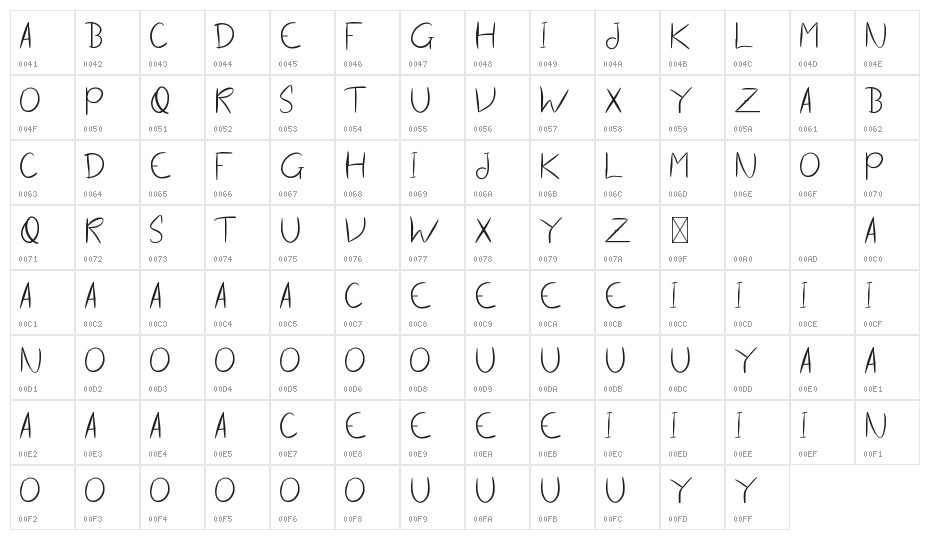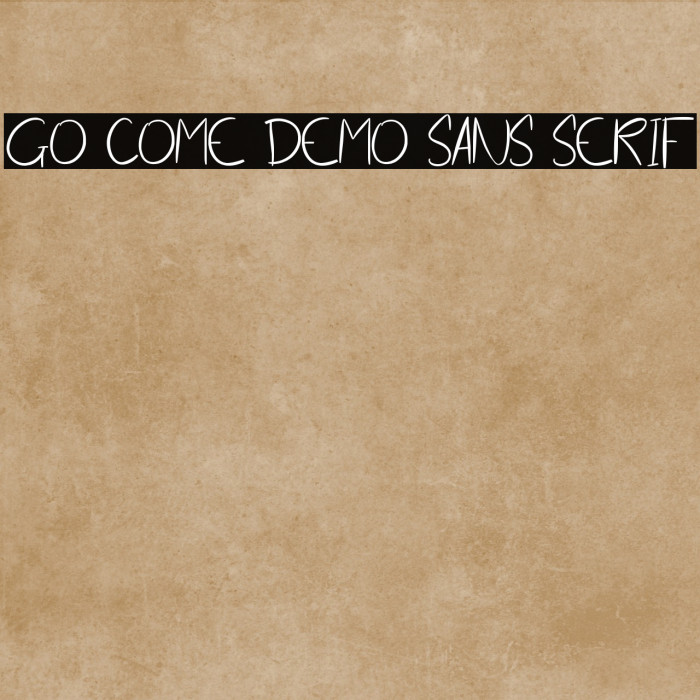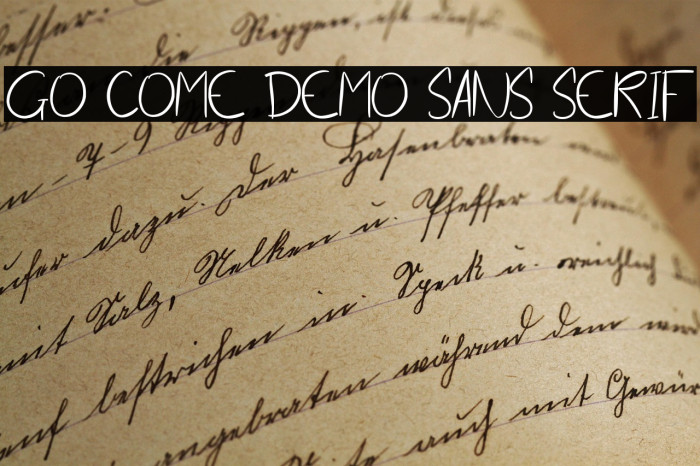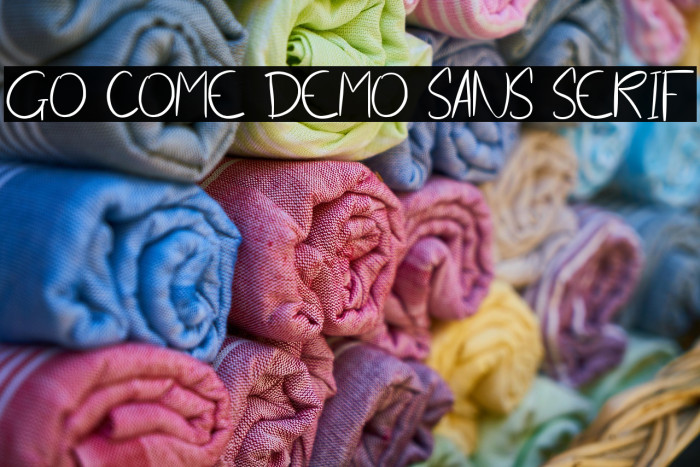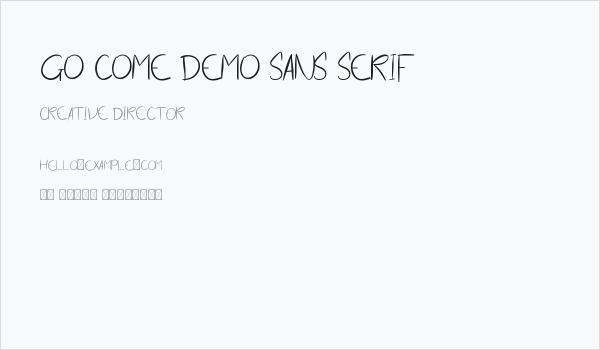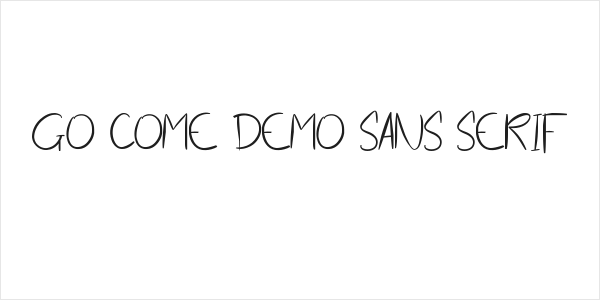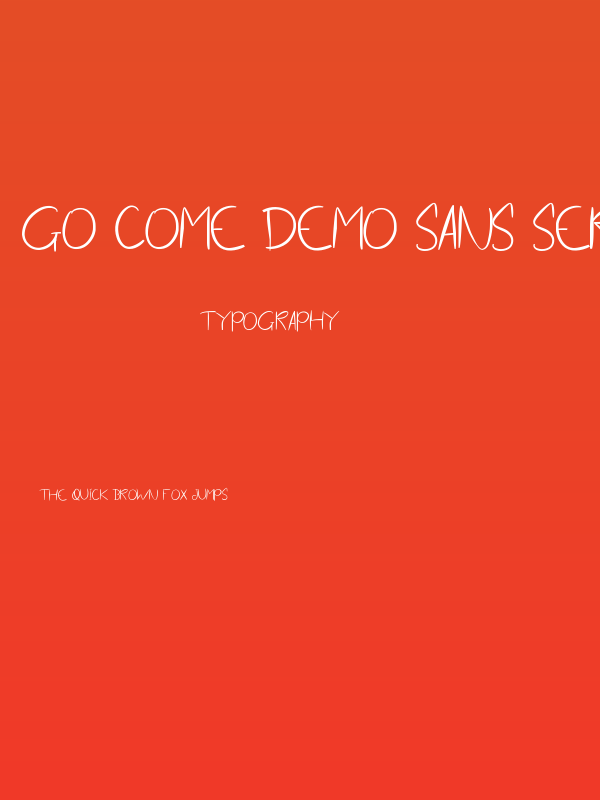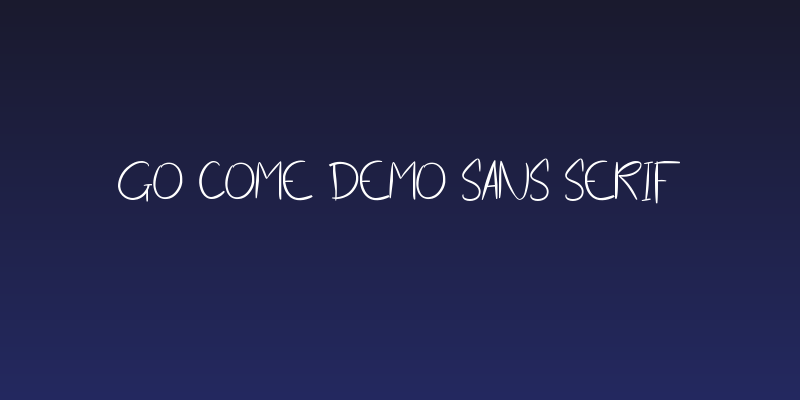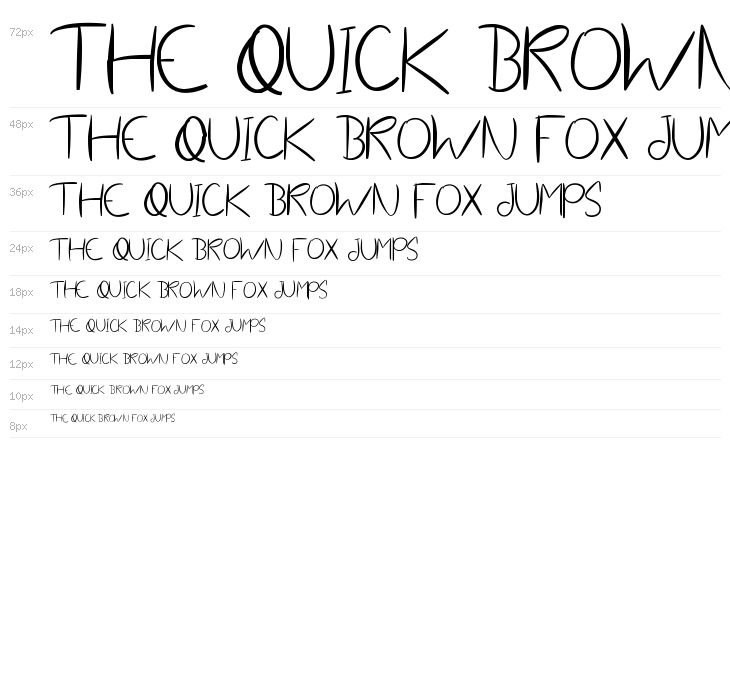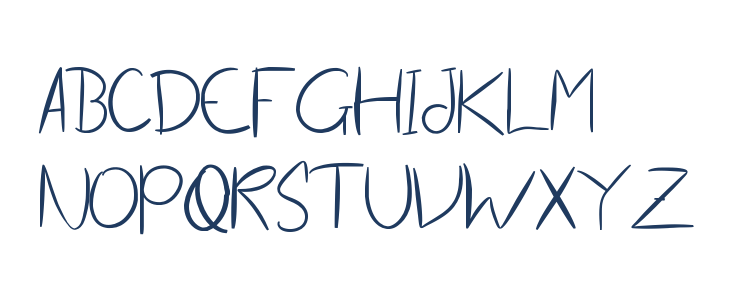
Go Come Demo Sans Serif Font
Go Come Demo Sans Serif Description
This font features a playful, handwritten style with a casual and informal appearance. The letters are slightly irregular, giving it a unique and personal touch. The strokes are consistent in width, providing a uniform look across all characters. The font maintains a good balance between readability and artistic flair, making it suitable for creative projects. The characters are well-spaced, ensuring clarity and legibility. Its whimsical nature makes it ideal for projects that require a friendly and approachable feel.